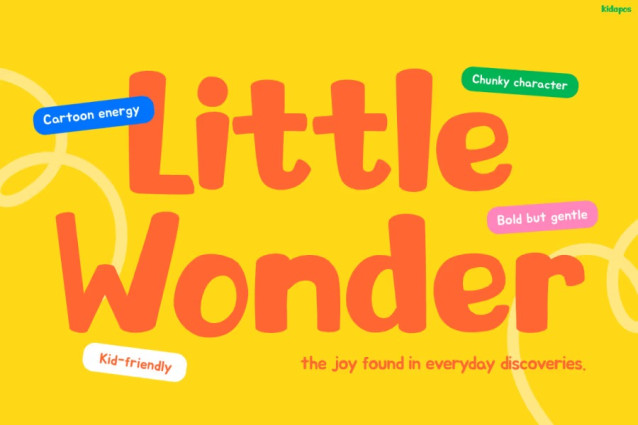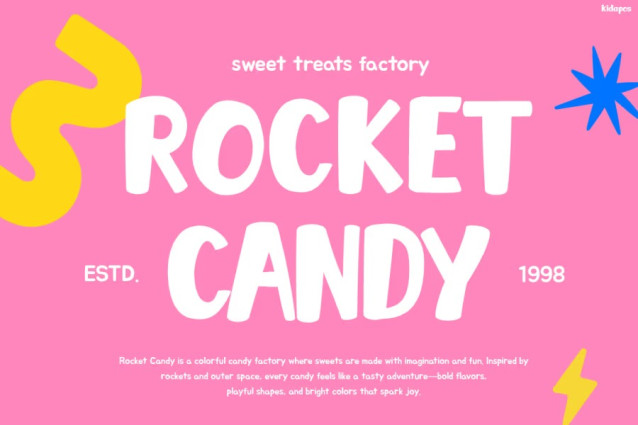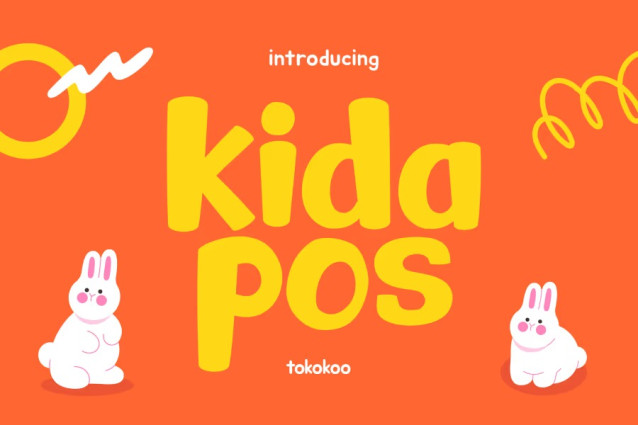
Kidapos Font
Kidapos Font brings cheerful energy, bold personality, and friendly charm into every letterform. From the first glance, this font feels fun, warm, and approachable. Its rounded shapes, playful curves, and lively proportions create an instant sense of joy. As a result, KIDAPOS stands out as a font that feels natural for kids-focused visuals while remaining clean and readable. Moreover, each character feels expressive without becoming messy, which makes the font visually exciting yet practical. Because of this balance, Kids Font KIDAPOS works beautifully across posters, menus, packaging, and digital content. In addition, the font supports clear communication while adding a bright emotional tone that captures attention fast.
KIDAPOS is designed to deliver happiness through typography. First, its chunky strokes and soft edges create a friendly rhythm that feels safe and inviting. Then, its consistent weight ensures strong readability at various sizes. Whether displayed large on banners or smaller on product labels, the font keeps its playful identity. Furthermore, the lively spacing and smooth curves help words feel energetic rather than stiff. As shown in the visuals, KIDAPOS adapts easily to food branding, kids menus, dessert packaging, event posters, learning materials, and social media graphics. At the same time, its bold structure helps messages stand out in colorful layouts. Therefore, this font becomes a powerful tool for designers who want fun without losing clarity.
Kids Font KIDAPOS is ideal for designers, illustrators, and brands working in children-related industries. For example, it fits perfectly for kids fashion brands, toy packaging, bakery and dessert shops, ice cream labels, cafes, and playful food promotions. In addition, it works well for educators creating worksheets, posters, or classroom decorations. Meanwhile, content creators and social media managers can use it to design cheerful Instagram posts, reels covers, and story highlights. Even small businesses benefit from KIDAPOS because it helps branding feel warm, friendly, and memorable. Most importantly, anyone who wants their design to feel joyful, optimistic, and approachable will find this font extremely useful.